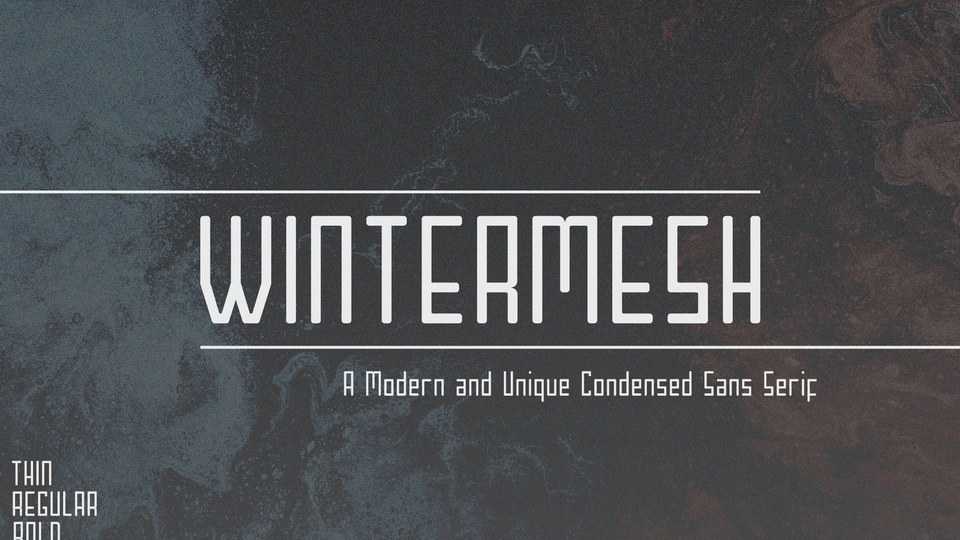
Download Wintermesh font, a modern and uniquely condensed sans serif typeface with solid characters. Wintermesh is suitable for logos, posters, branding, design titles, blog headers, art quotes, typography.
Designer: Shanaya Creative